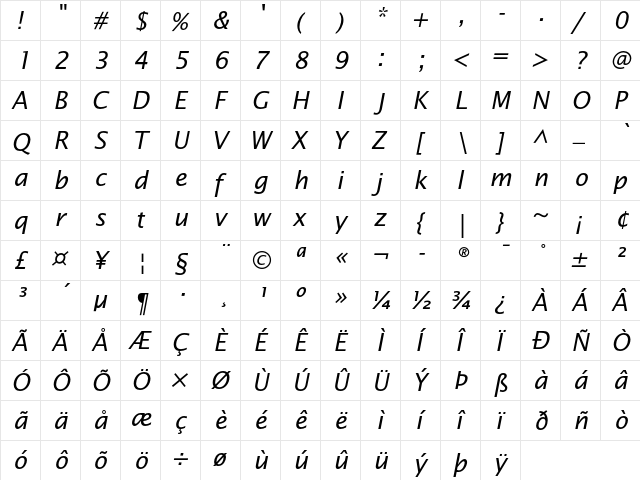
Lucida Sans Italic
Design Context for Lucida Sans Typeface
Lucida Sans takes a measured approach to typography — its balanced proportions and neutral character make it a reliable workhorse for both digital and print work. Its italic angle brings a sense of urgency and motion to the letterforms.
Pro Tip: Use Lucida Sans for emphasis, pull quotes, and subheadings where its slanted energy can add rhythm to the layout.